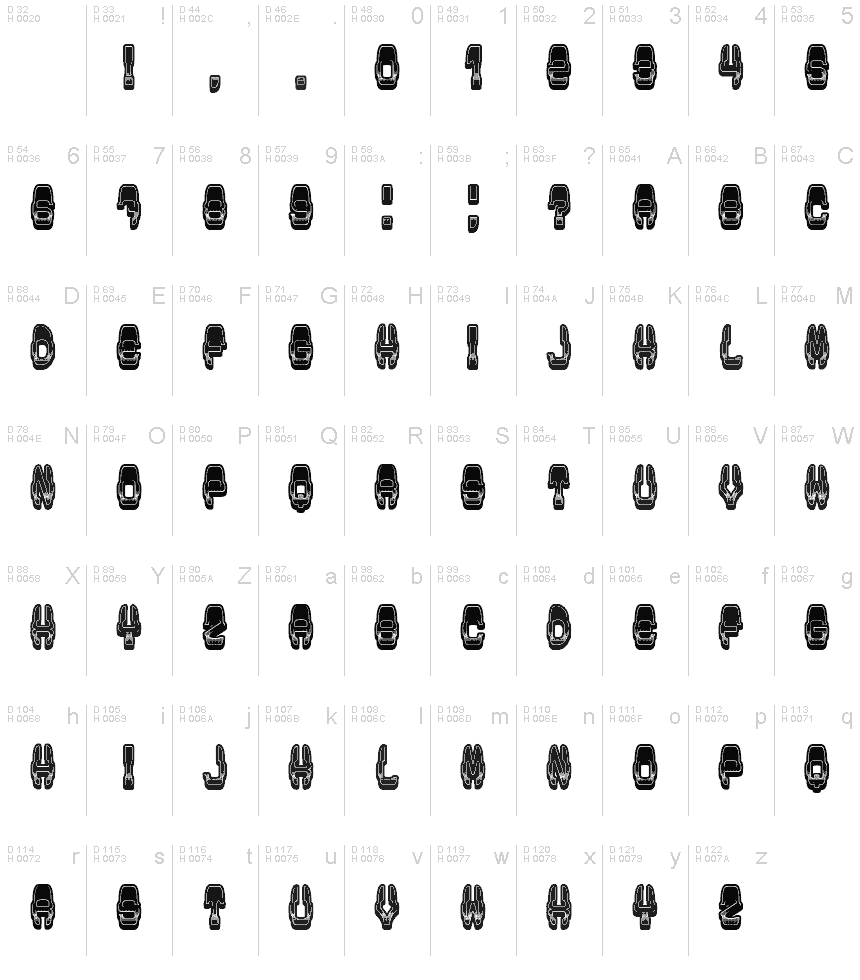
Modish Gradient Regular
Modish is a bold, condensed display font that exudes a groovy, retro-inspired aesthetic. Designed by Vladimir Nikolic, this font boasts distinctive letterforms with a playful gradient effect, creating a mesmerizing visual impact.
The condensed width lends a sense of dynamism, while the bold weight imbues the typography with a commanding presence. Modish's versatility makes it an excellent choice for a variety of design applications, from eye-catching headlines and logo designs to impactful branding and packaging elements.
Its unique character and retro-futuristic flair can elevate any project, infusing it with a touch of charismatic style.